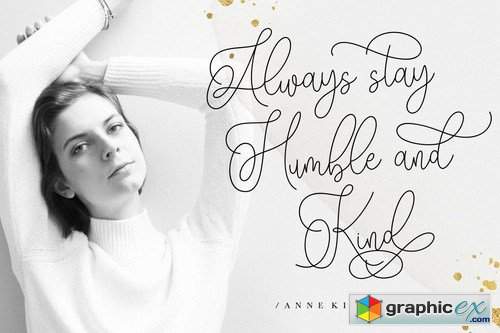
Hariette Sofirya Monoline Signature
Hariette Sofirya a monoline signature font with natural line movement make this font looks classy, elegant and sophisticated.